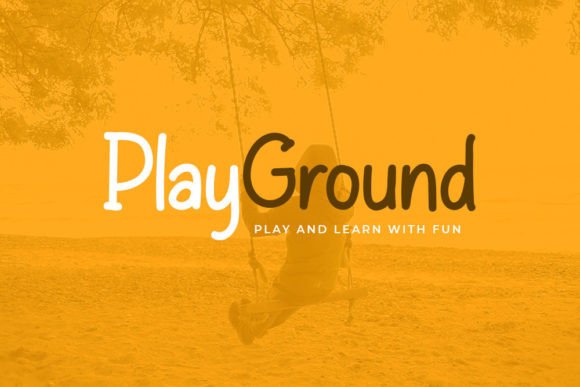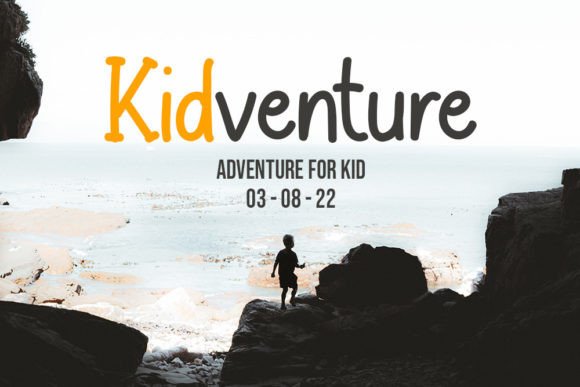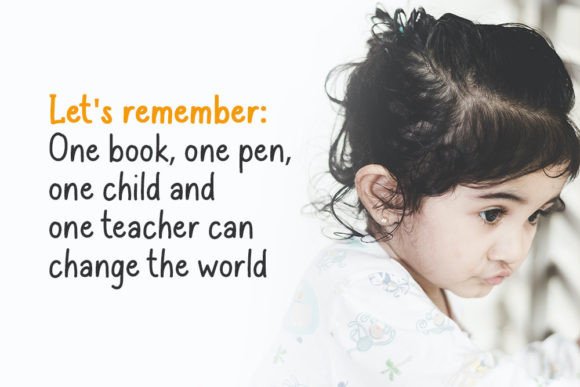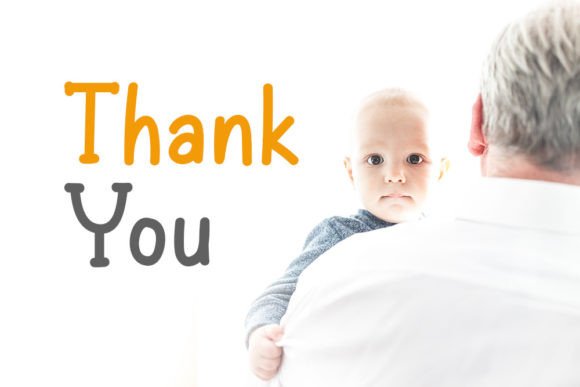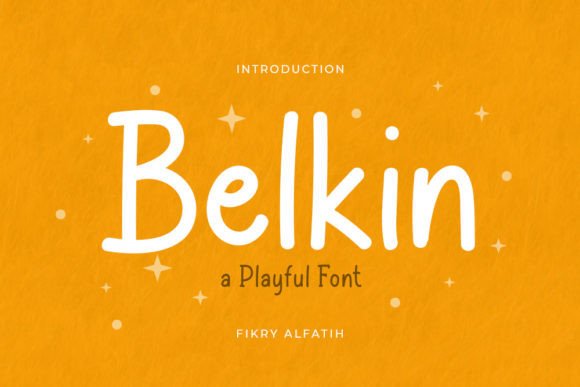
Introducing Belkin Font: The Ultimate Handwritten Font for Creative Designs
Are you tired of using the same old fonts for your designs? Do you want to add a touch of fun and playfulness to your quotes, logo designs, brand image, product packaging, merchandise, and social media posts? Look no further than Belkin Font, a luxurious handwritten font that combines fun and playful glyphs to elevate your designs to the next level.
What is Belkin Font?
Belkin Font is a unique and creative handwritten font that is designed to add a personal touch to your designs. With its hand-drawn effect, this font provides a luxurious and high-end feel that is sure to grab attention. Whether you’re a designer, crafty DIY enthusiast, or social media influencer, Belkin Font is the perfect addition to your design toolkit.
Key Features of Belkin Font
• Handwritten style: Belkin Font features a beautiful handwritten style that is both fun and playful.
• Luxurious hand-drawn effect: The font’s hand-drawn effect gives it a high-end feel that’s perfect for luxury brands and designs.
• Playful glyphs: Belkin Font comes with a range of playful glyphs that can be used to add a touch of whimsy to your designs.
• Versatile: This font is perfect for a wide range of design applications, including quotes, logo designs, brand image, product packaging, merchandise, and social media posts.
Benefits of Using Belkin Font
So why should you choose Belkin Font for your designs? Here are just a few benefits of using this amazing font:
• Adds a personal touch: Belkin Font’s handwritten style adds a personal touch to your designs, making them stand out from the crowd.
• Increases engagement: The playful and fun glyphs in Belkin Font are sure to grab attention and increase engagement with your audience.
• Perfect for branding: The luxurious hand-drawn effect of Belkin Font makes it perfect for luxury brands and designs.
Design Ideas Using Belkin Font
Belkin Font is a versatile font that can be used for a wide range of design applications. Here are a few design ideas to get you started:
• Quote designs: Use Belkin Font to create beautiful quote designs that are perfect for social media posts and blogs.
• Logo designs: Create stunning logo designs with Belkin Font that are sure to grab attention.
• Product packaging: Use Belkin Font to add a personal touch to your product packaging and make it stand out from the crowd.
• Merchandise: Create amazing merchandise with Belkin Font, including t-shirts, mugs, and tote bags.
Font Name Belkin Font
Author Fikry Alfatih